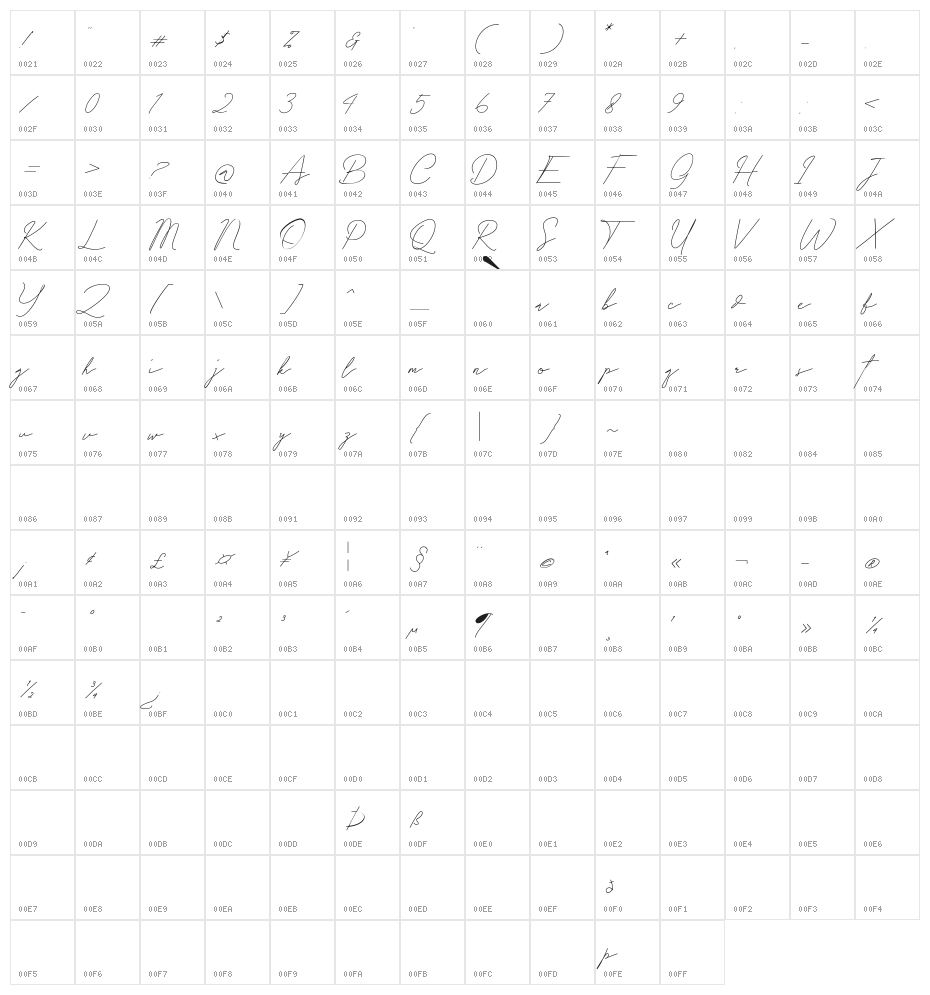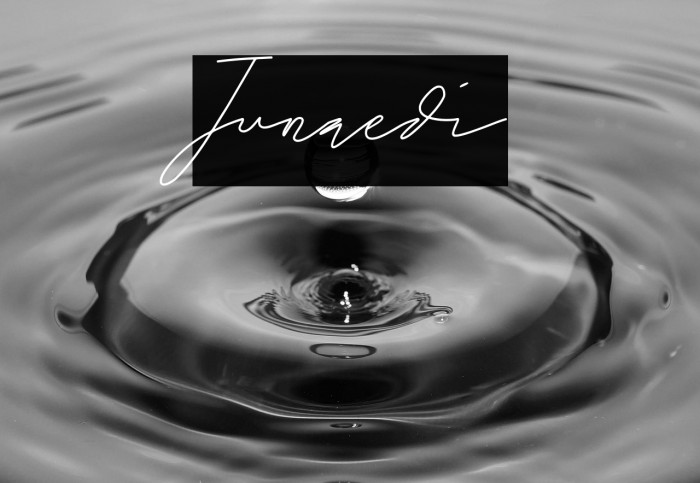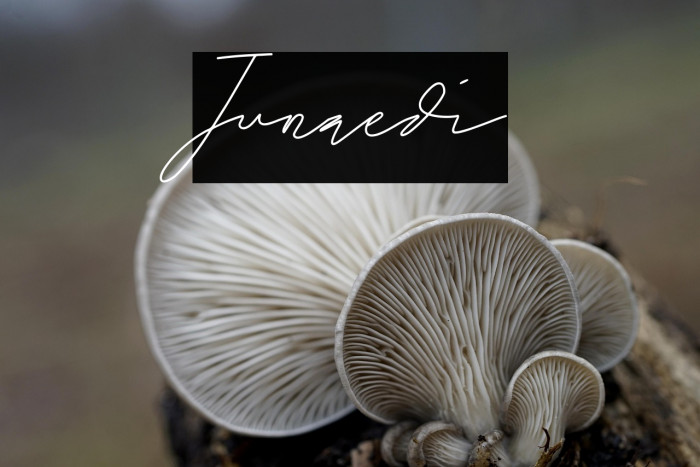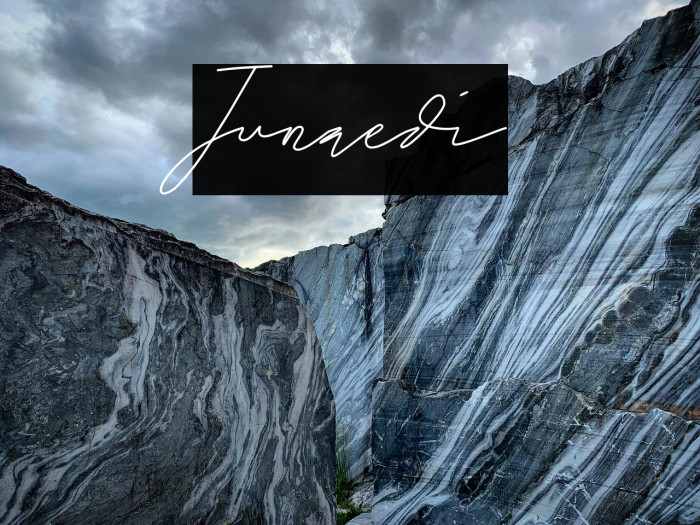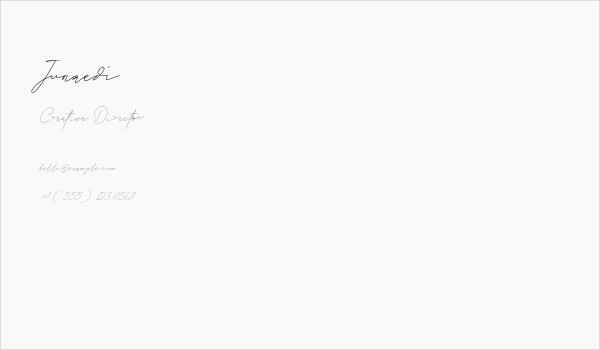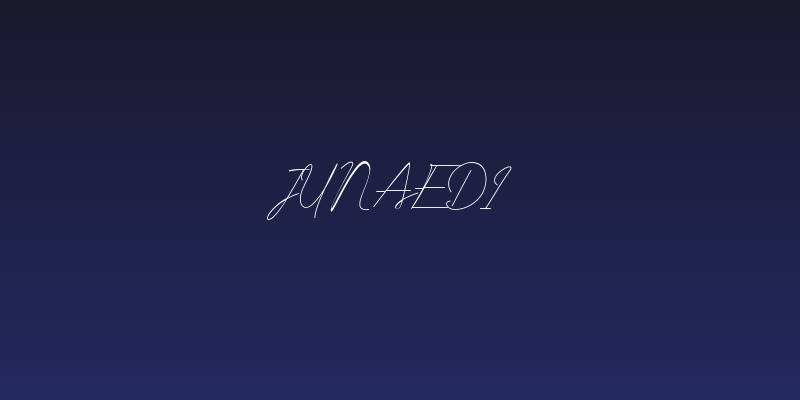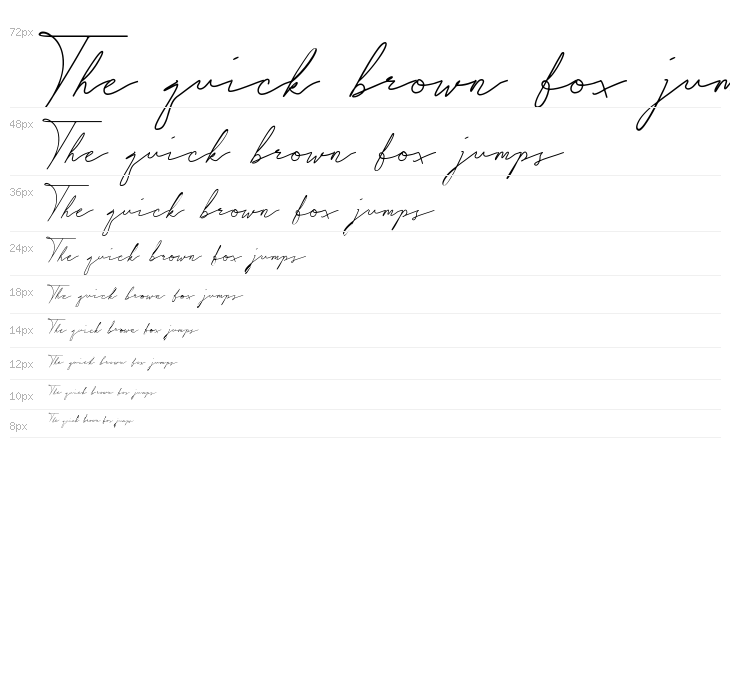
Junaedi Font
Junaedi Description
This font exudes a sophisticated and elegant handwritten style, characterized by its fluid and graceful strokes. Each letter is crafted with a sense of movement, giving it a dynamic and lively appearance. The uppercase letters are tall and slender, with a slight slant that enhances the cursive nature of the font. The lowercase letters maintain a consistent flow, seamlessly connecting to one another, which adds to the overall cohesiveness of the design. The numerals are equally stylish, maintaining the same elegant curves and slanted orientation. Special characters are thoughtfully integrated, complementing the overall aesthetic. This font is perfect for projects that require a touch of elegance and personal flair.
| Overall Style | Elegant, Handwritten |
| Use Case | Logos, Invitations, Personal Branding |
| Proposed Projects | Ideal for wedding invitations, personal branding, elegant stationery, and artistic projects. |